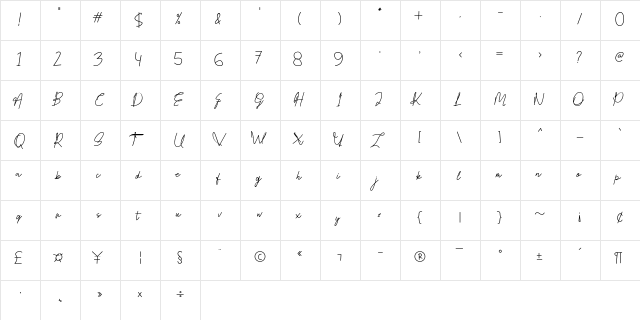
Honesty Regular
Design Context for Honesty Typeface
Honesty is a composed and adaptable typeface that performs quietly and consistently across a wide range of design contexts.